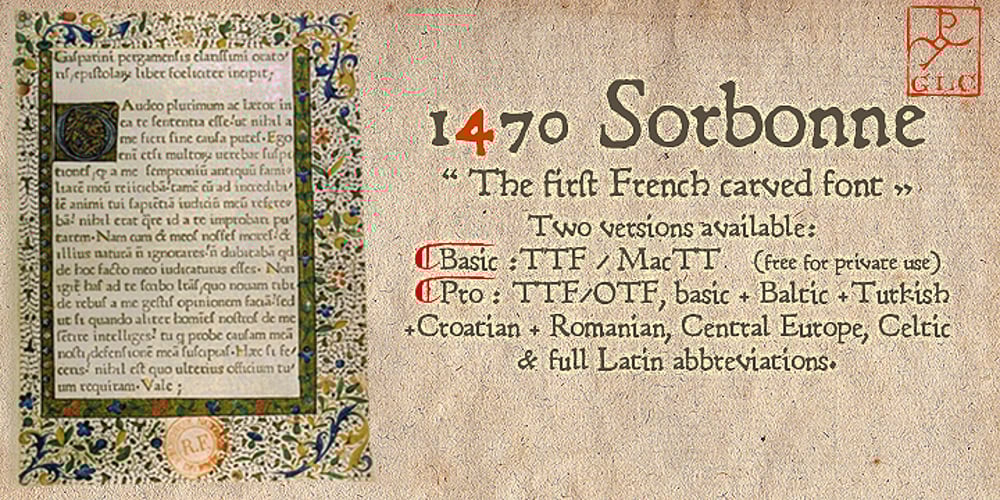
1470 Sorbonne
1470 Sorbonne font
1470 Sorbonne Font Family was designed by Gilles Le Corre and published by GLC. 1470 Sorbonne contains 1 styles and family package options. This family was created inspired from the first font carved and cast in France, for the Sorbonne University’s printing workshop (Paris). The characters were drawn by Jean Heynlin, rector of the university – inspired from Pannartz’s – and in all probability was carved by Adolf Rusch. It has only one style, in one size (about 14 Didots points). We have added the U, J, W and Y, some accented characters and others not in use in the original, but the standard and historical ligatures and the numerous Latins abbreviations are these of the original font. The font is proposed in two choices : Basic Latin, MacTT & TTF, free for a private use, and “Pro”, TTF/OTF, available for standard basic Latin plus Central Europe, Baltic, Turkish, Croatian, Romanian, Celtic.